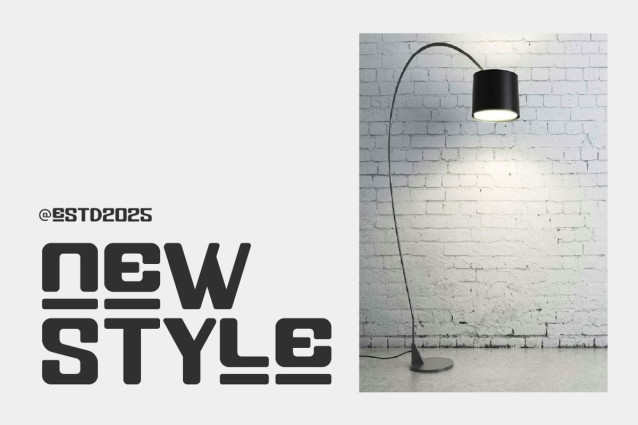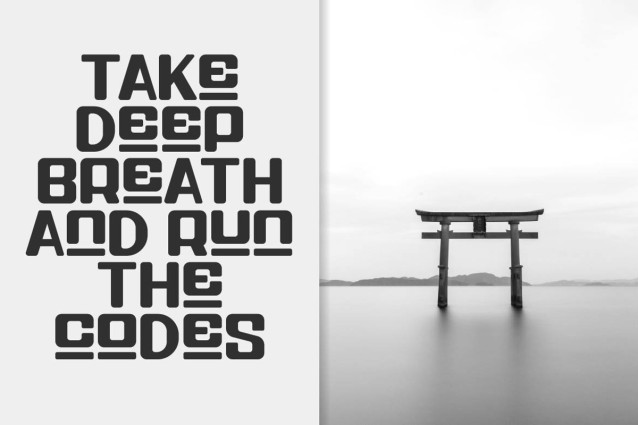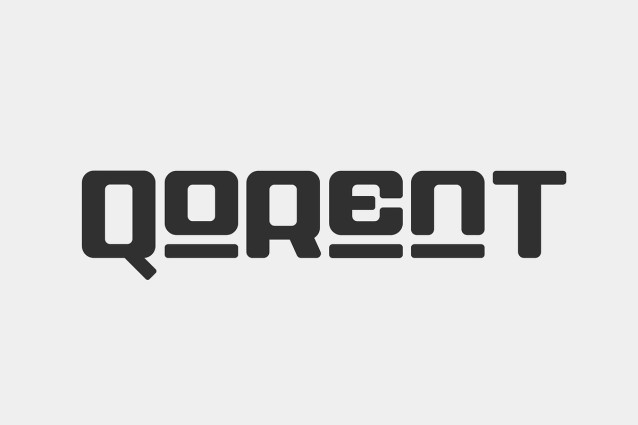
Qorent Font
Qorent Font is a creative display font designed to break the mold and spark imagination. With its expressive shapes, unexpected curves, and artistic flair, Qorent turns every letter into a visual centerpiece. This is not your everyday font — it’s made for headlines that stand out, logos that leave an impression, and designs that dare to be different.